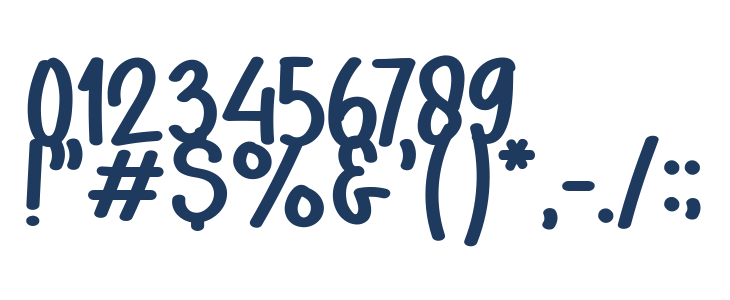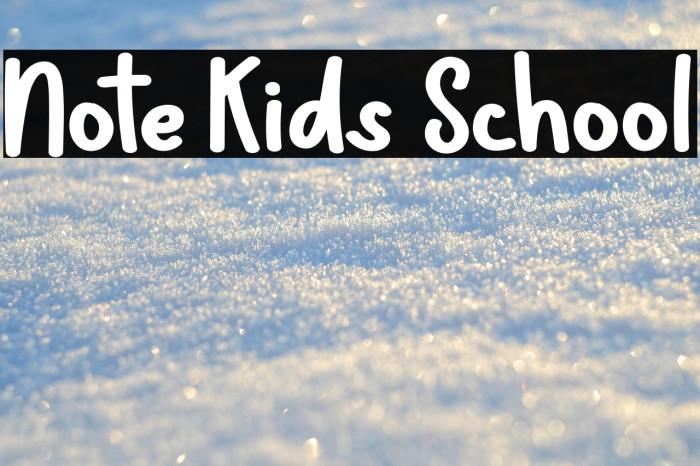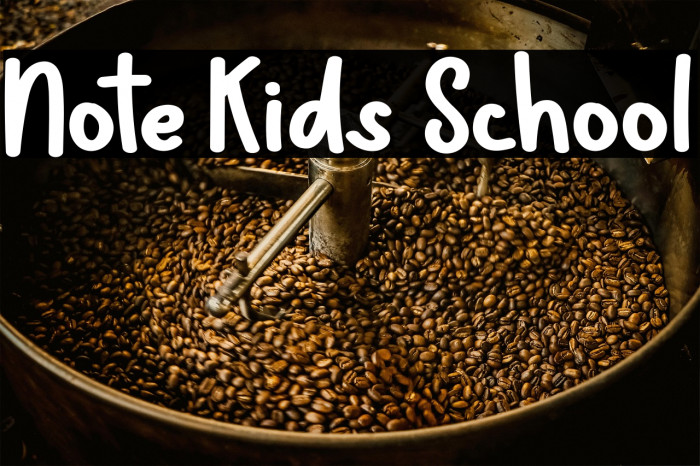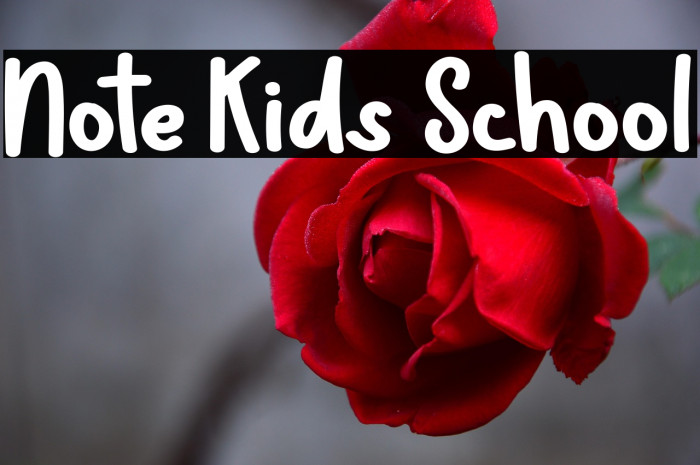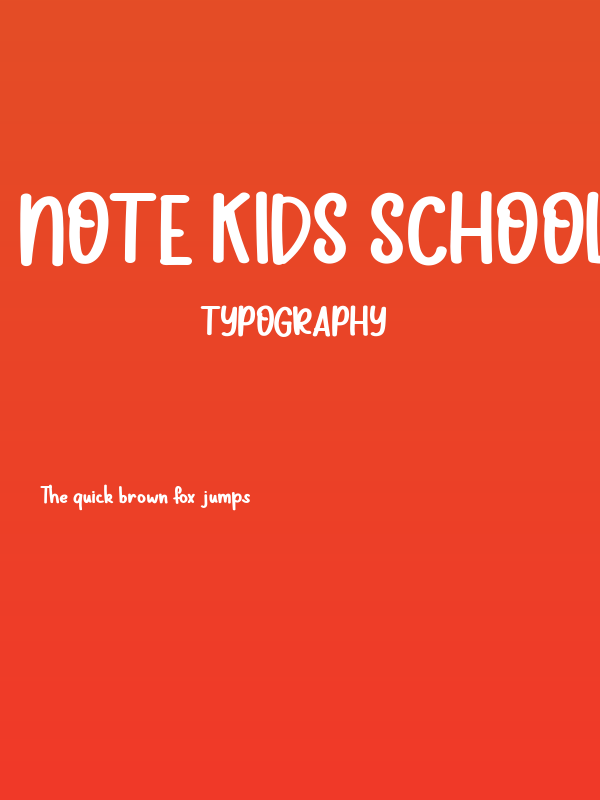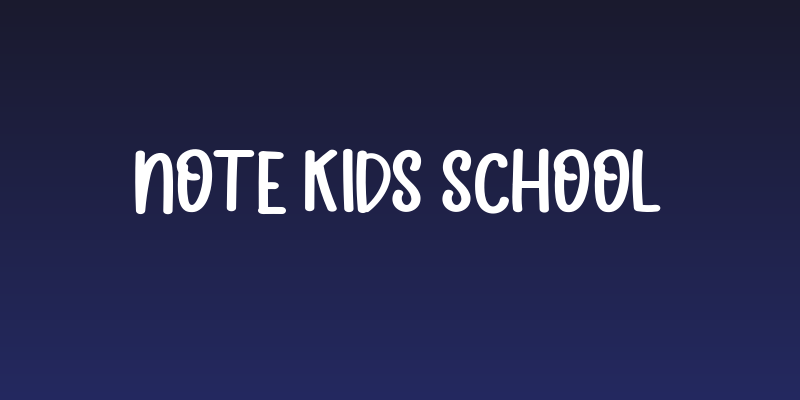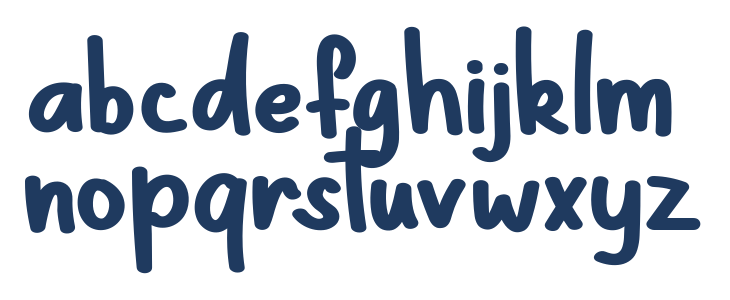
Note Kids School Font
Note Kids School Description
This playful and whimsical font features a handwritten style with bold, rounded characters that convey a sense of fun and creativity. The letters are slightly irregular, adding to the casual and friendly appearance. The font includes both uppercase and lowercase letters, numbers, and a variety of special characters, making it versatile for different uses. The strokes are consistent in thickness, providing a uniform look that enhances readability. Its informal style is reminiscent of children's handwriting, making it ideal for projects aimed at younger audiences or those seeking a lighthearted tone.
| Overall Style | Playful |
| Proposed Projects | Ideal for children's books, educational materials, playful branding, greeting cards, and creative posters. |